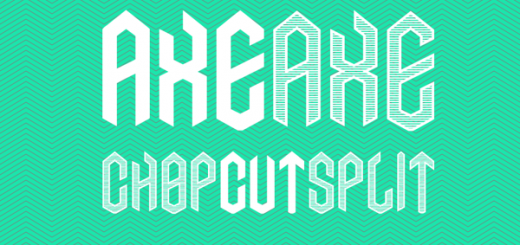
Kage Pro
Greetings: We are introducing an advanced version of the Kage font released and received great exposure from users and worldwide font enthusiasts. The massive development puts forward experimentation on the alternate letters. We redesign each shape…